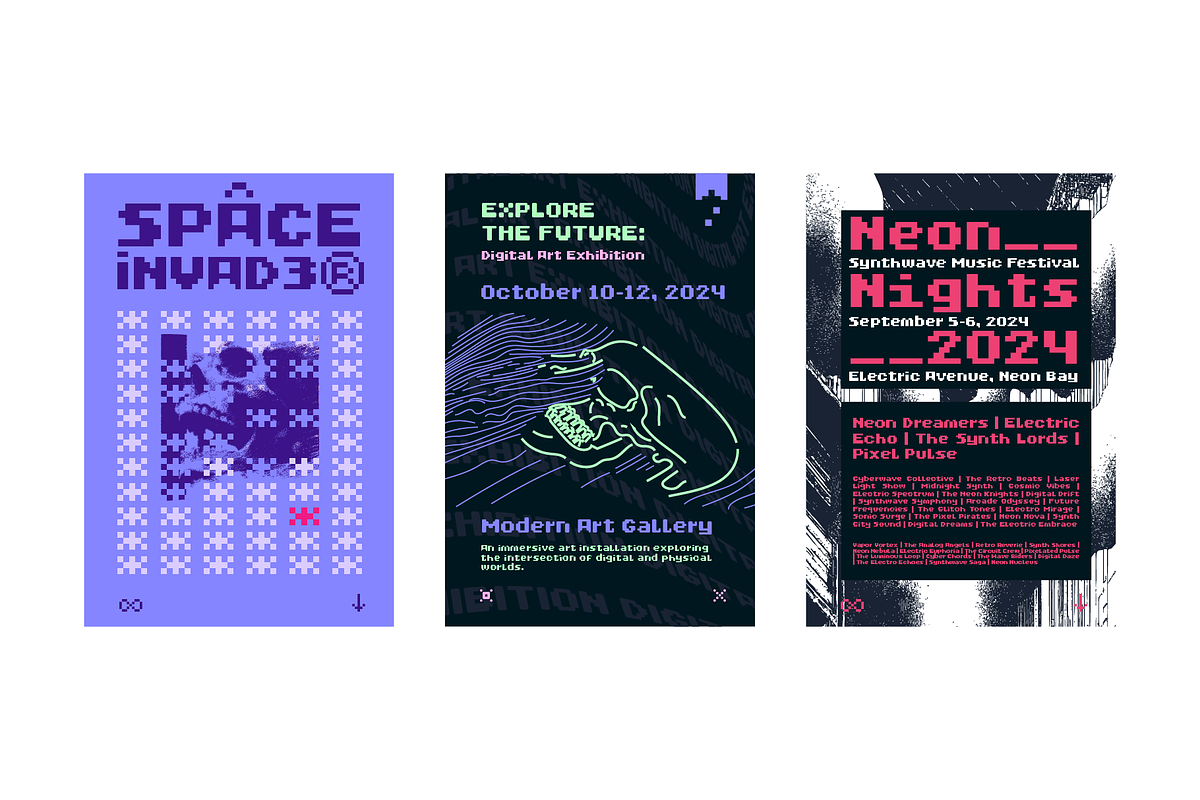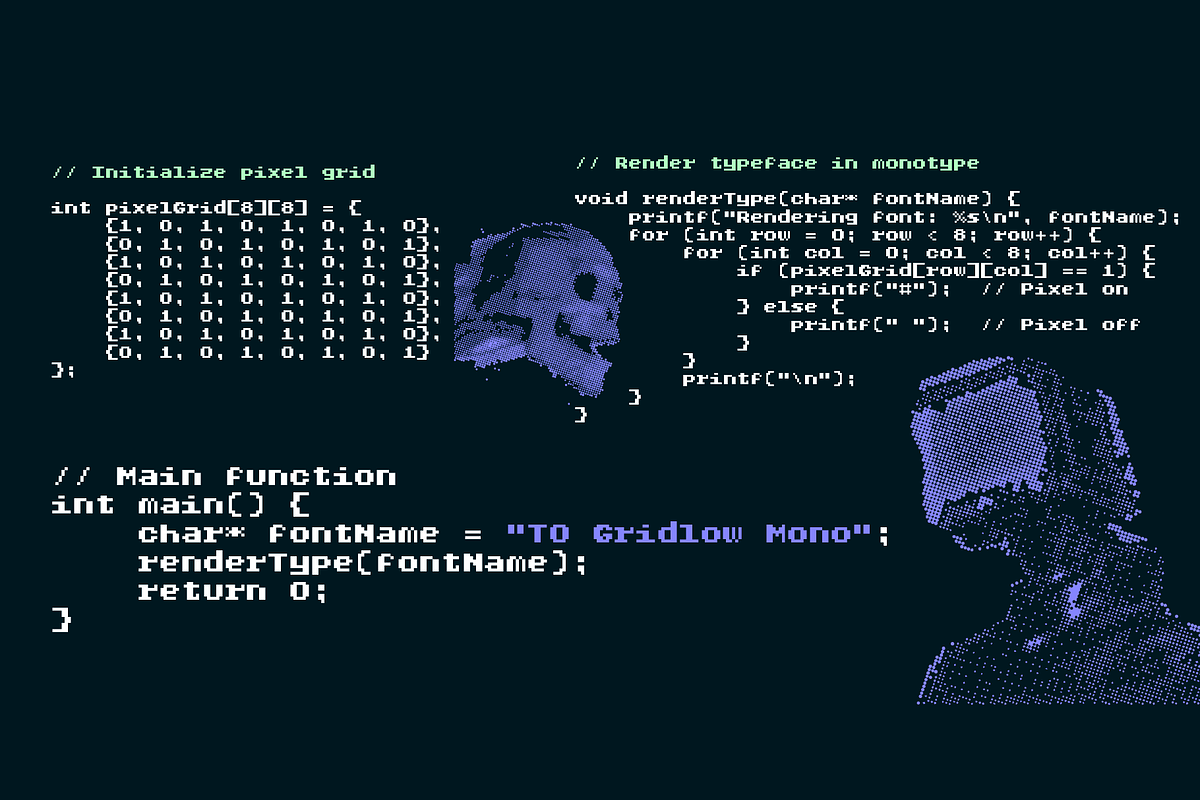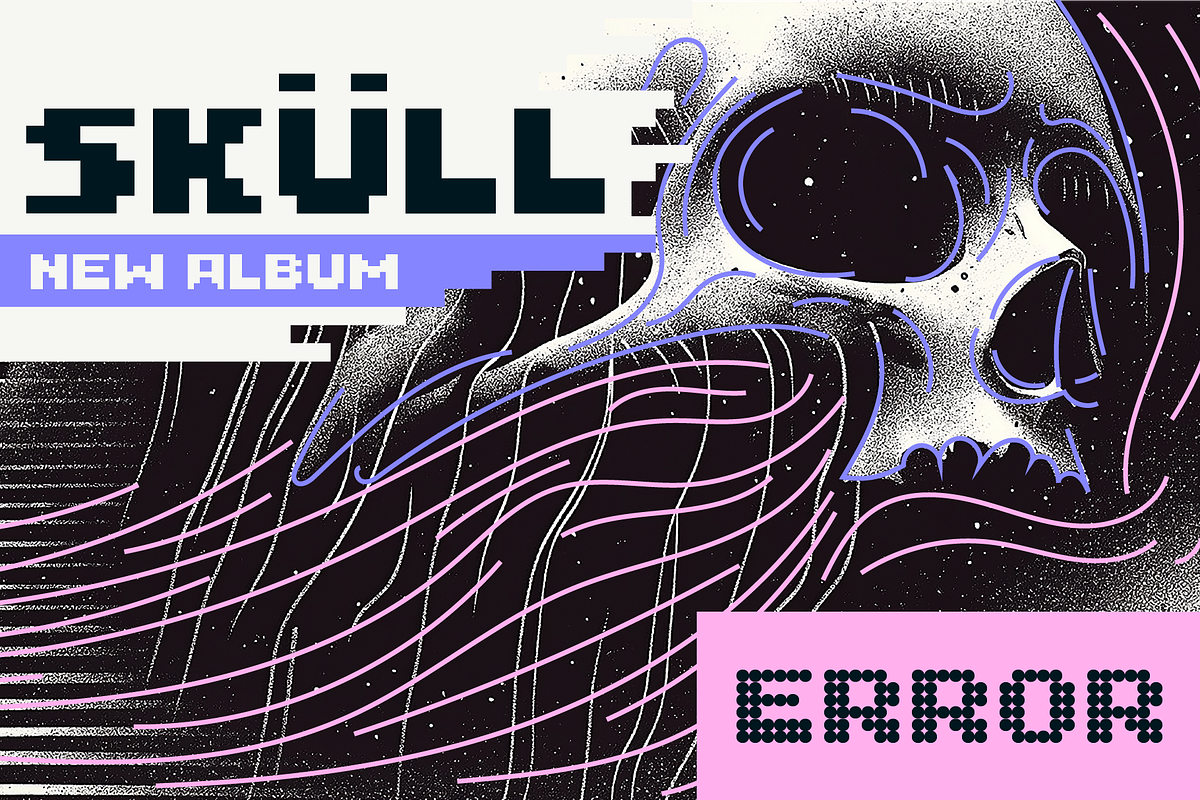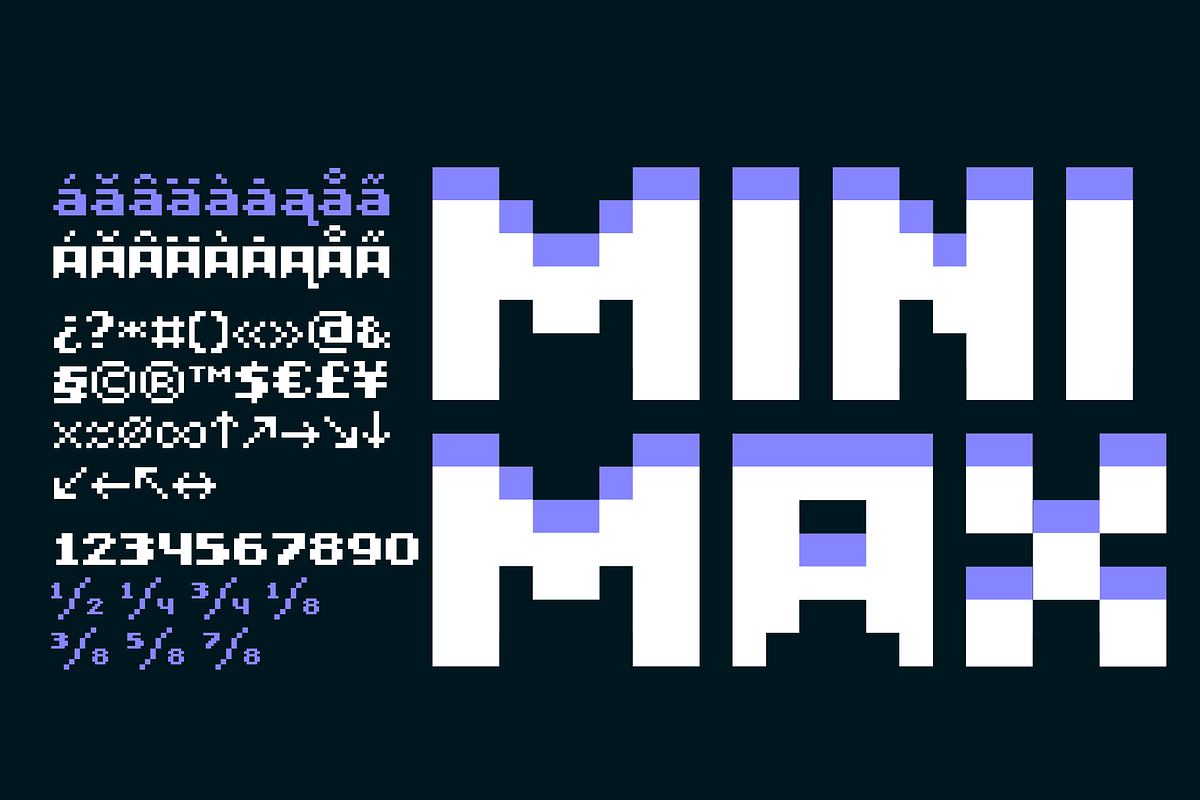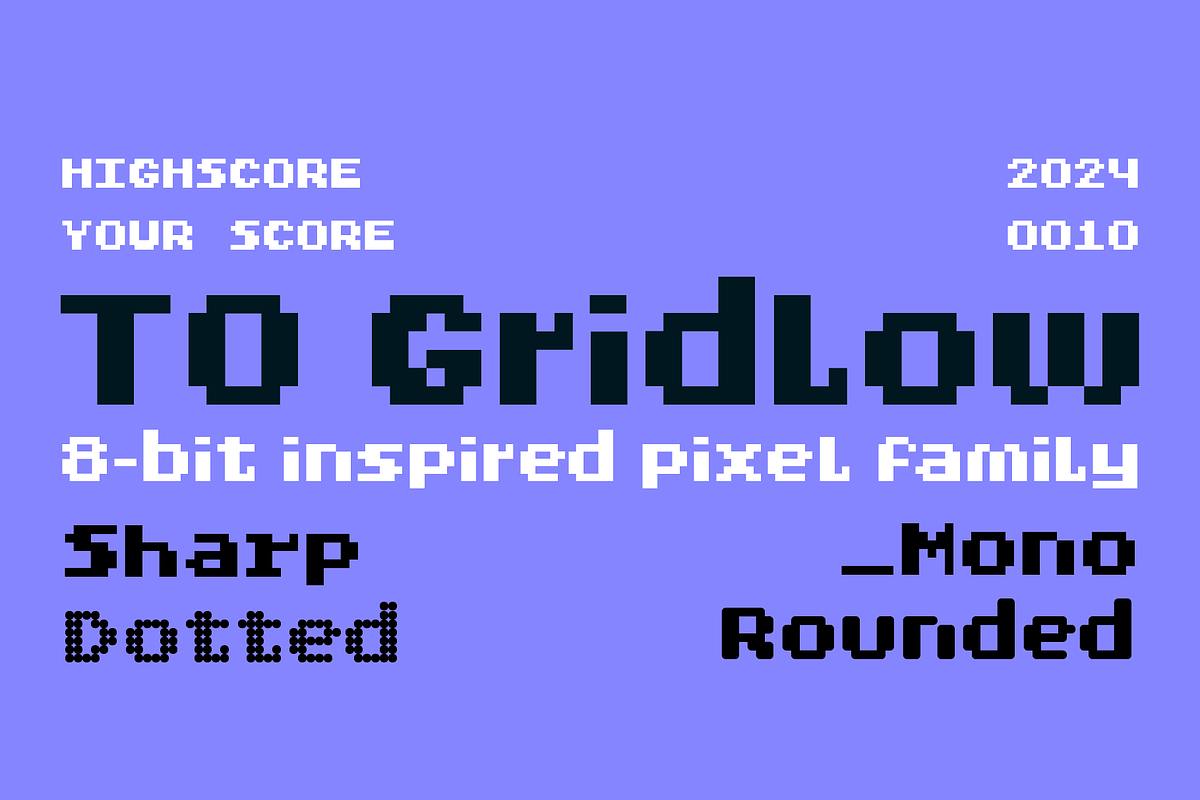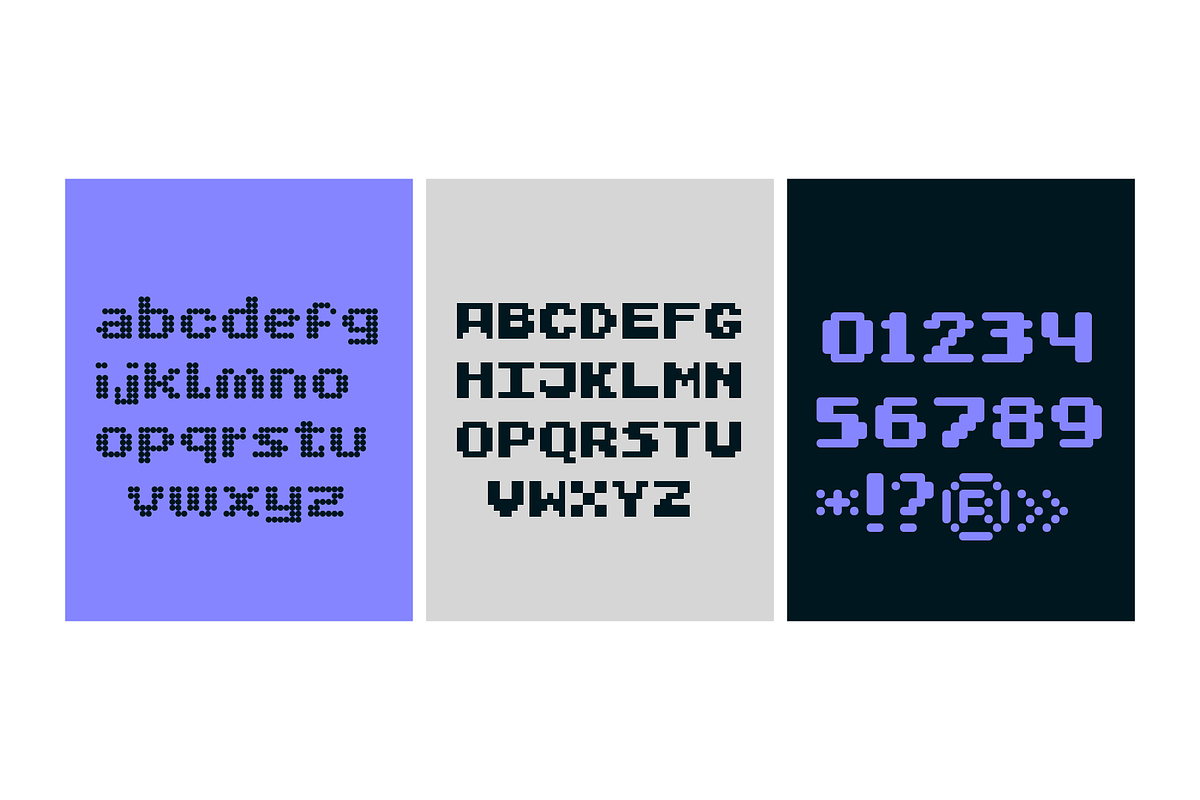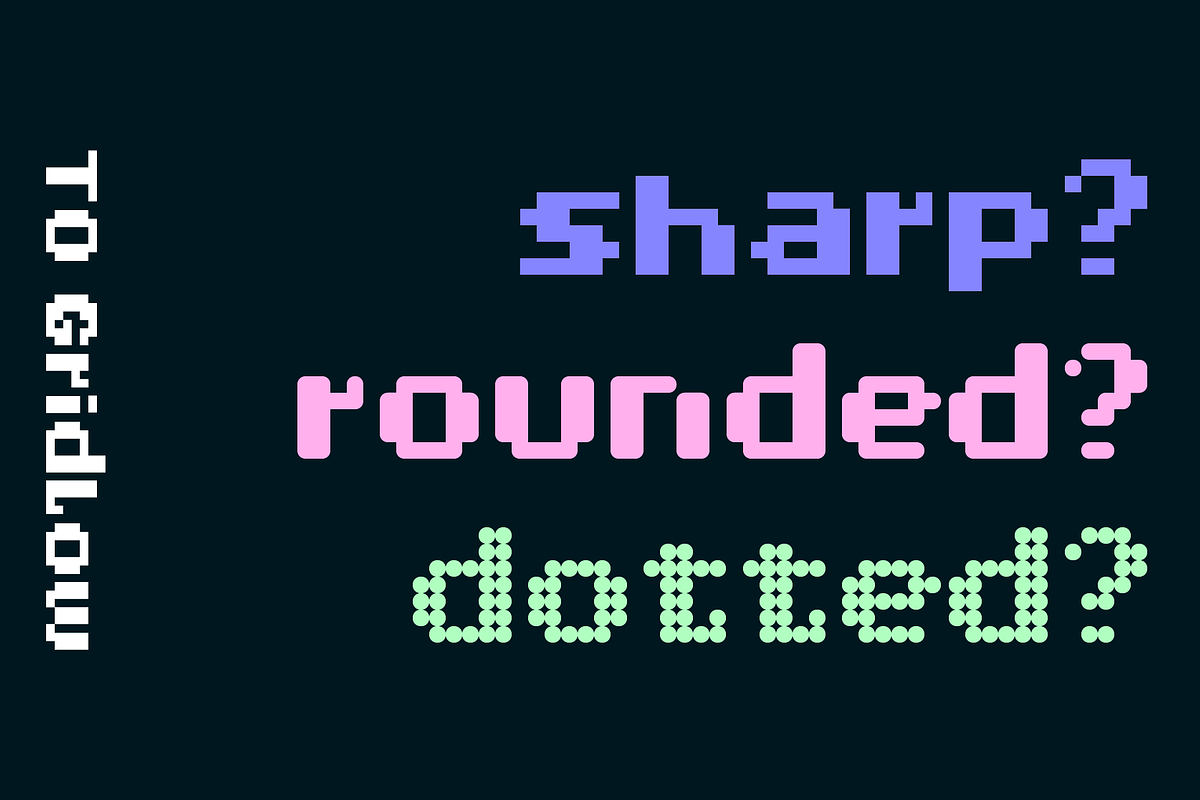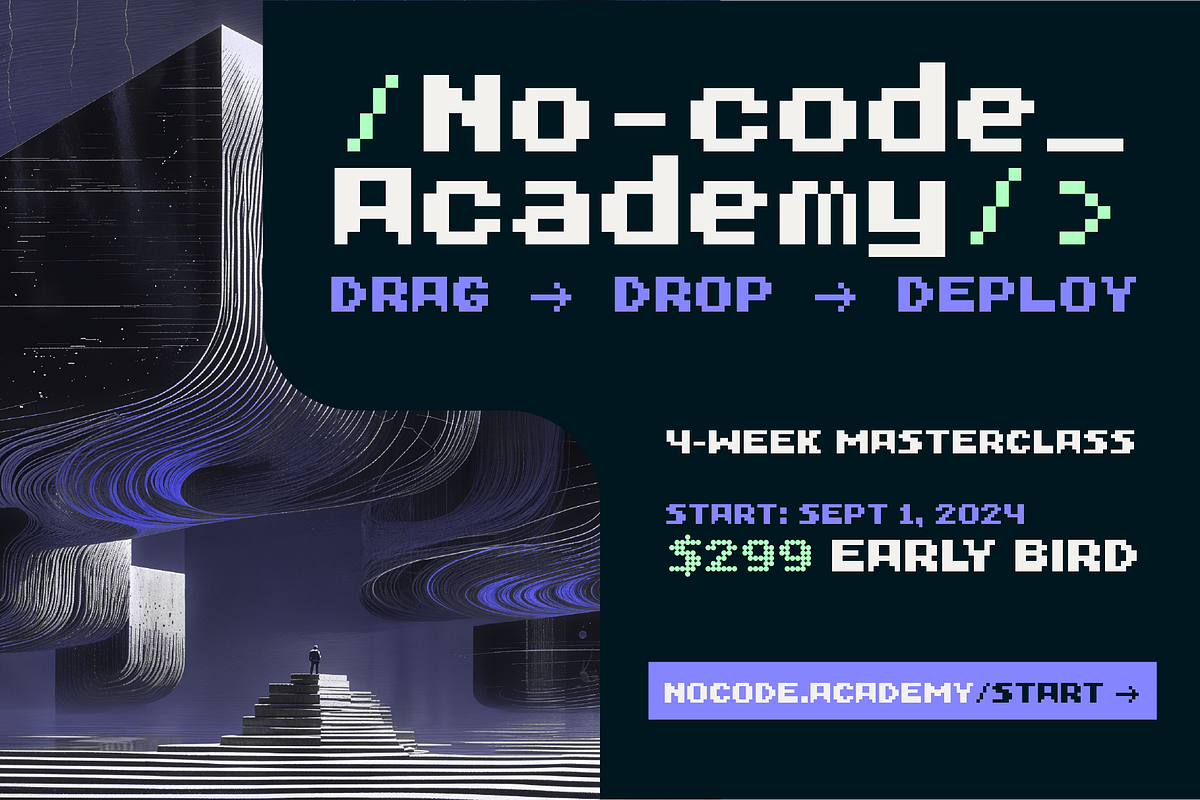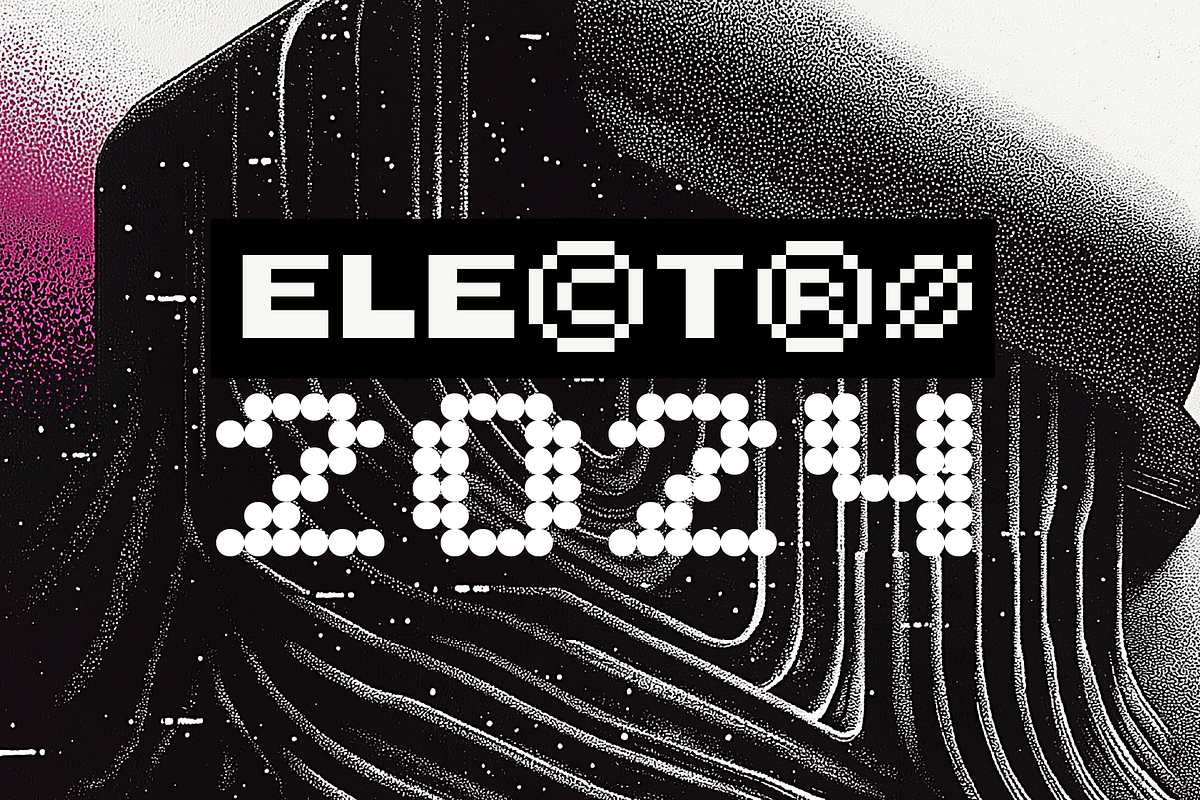
TO Gridlow 8-bit Pixel Typeface
TO Gridlow is a bold, 8-bit inspired typeface family that brings a nostalgic yet modern edge to your designs. It captures the essence of pixel art, making it perfect for retro-themed projects, logos, and headlines. This versatile family comes in four distinct styles: Sharp, Mono, Round, and Dotted, each offering unique character and brutalism vibes.
- Sharp: Crisp and edgy, ideal for creating striking, attention-grabbing text.
- Mono: A monospaced version that adds a structured, techy feel.
- Round: Softens the pixelated look with smooth curves, balancing retro and contemporary styles.
- Dotted: A playful take with a dotted pattern, adding a unique texture to your text.
TO Gridlow is perfect for posters, games, and digital art, infusing your work with a vibrant, pixelated charm.
The font family expertly balances nostalgia with contemporary design needs, making it suitable for projects requiring both retro charm and modern functionality. Its geometric precision and varied styles allow designers to create everything from sharp, technical layouts to softer, more playful compositions.